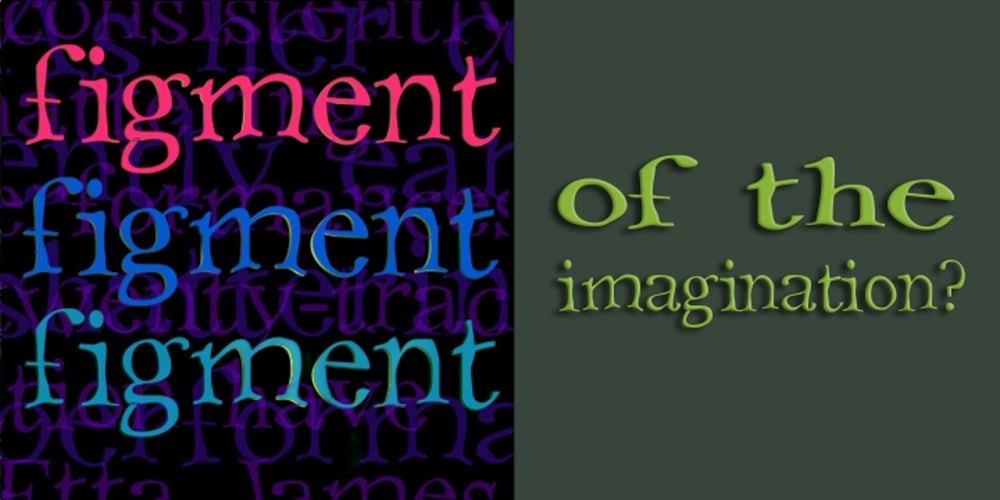
Figment Font Family was designed by Anton Scholtz and published by Scholtz Fonts. Figment contains 2 styles and family package options. Like a figment of the imagination, this very readable font wafts across the page, leading the reader into a world of enchantment. Ethereal and fluid, it is reminiscent of sorcerer’s spells written on ancient parchment. It manages, by the distortion of its characters, to transform a simple serif font into something quite different. Wavy outlines and an uneven baseline create an impression of fluidity and magic, while retaining the essential clarity of the classic serif body font. Use Figment for: — Children’s books — Halloween advertising media — book covers — movie titles — swing tickets — posters Figment is available in two styles, Figment Regular and Figment Force (a wider and bolder style) The font has been professionally letterspaced and kerned. All upper and lower case characters, punctuation, numerals and accented characters are present.